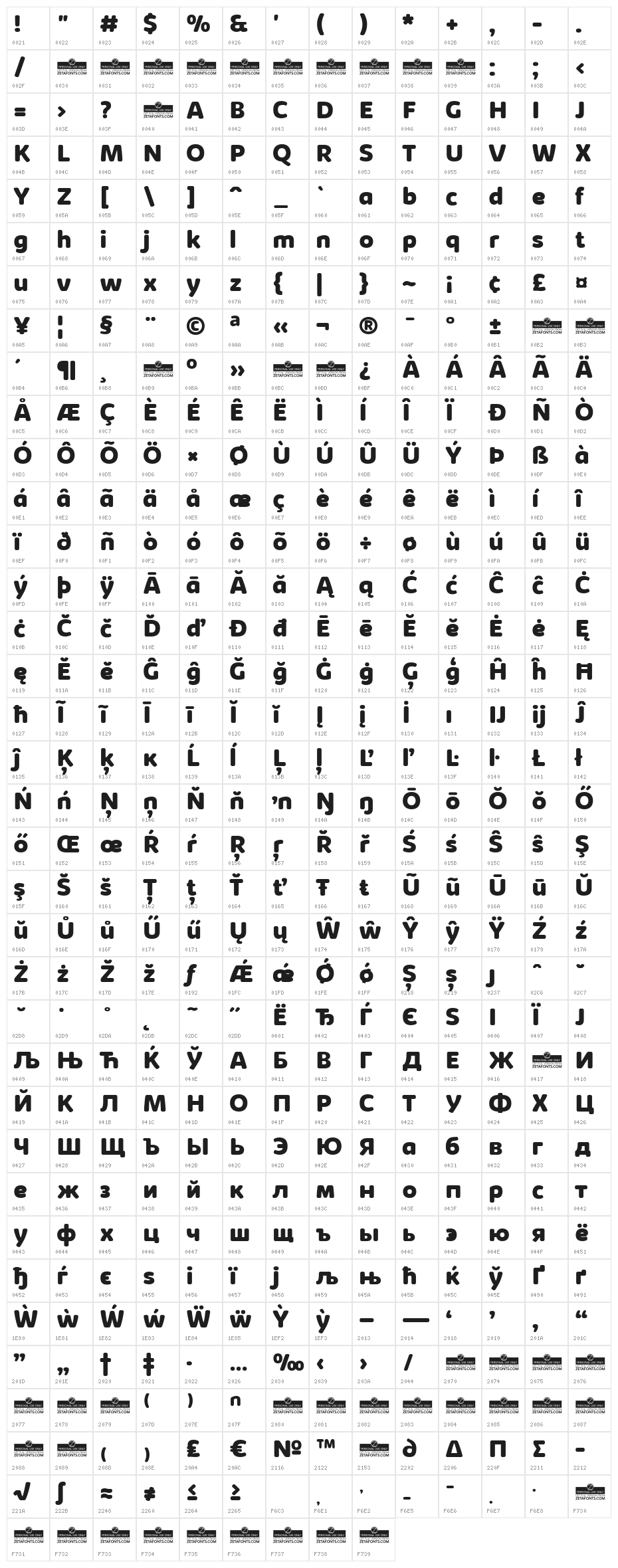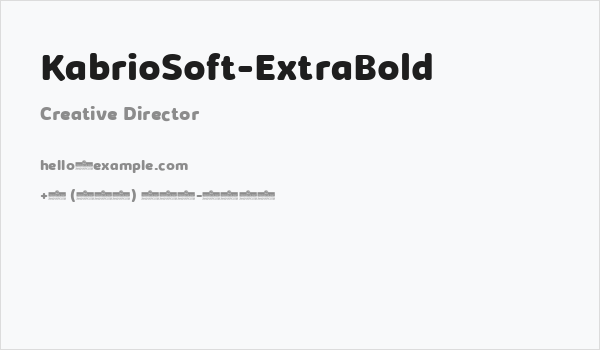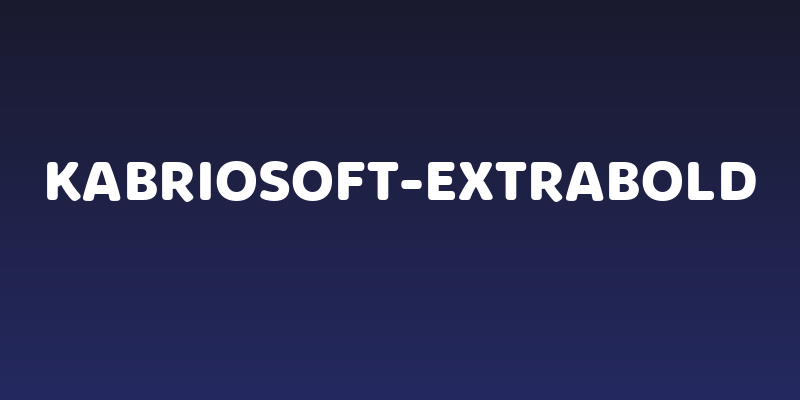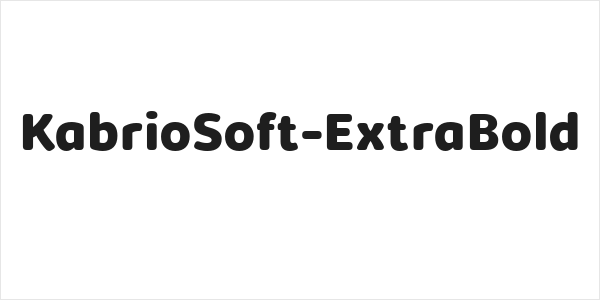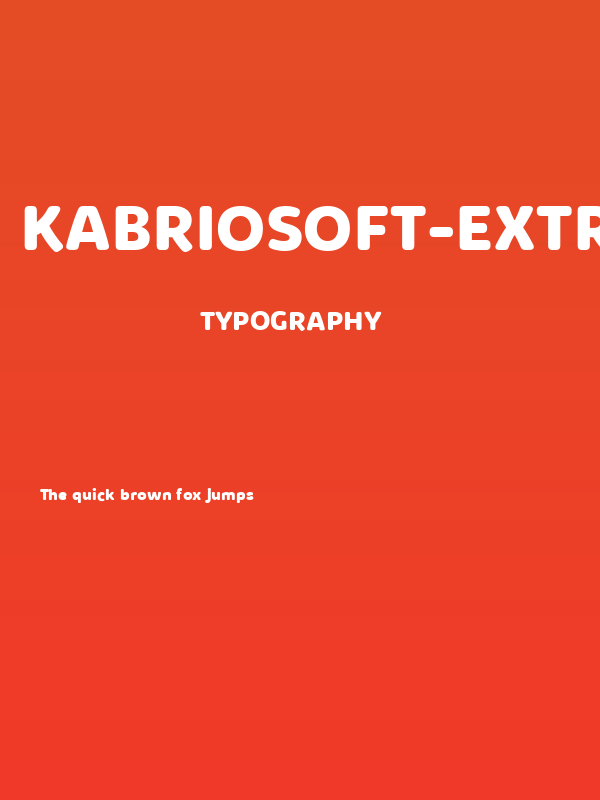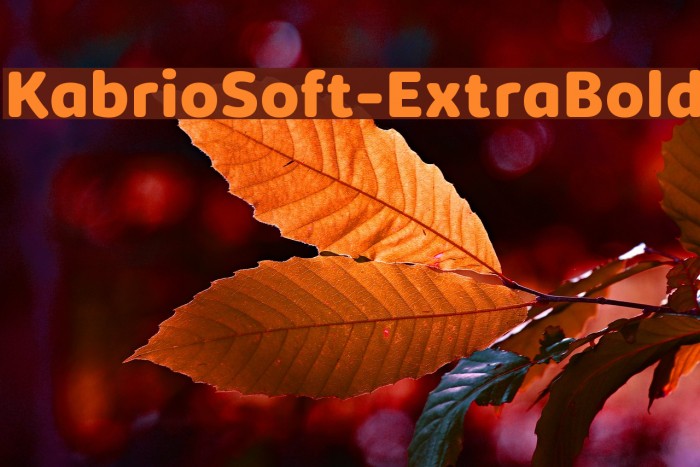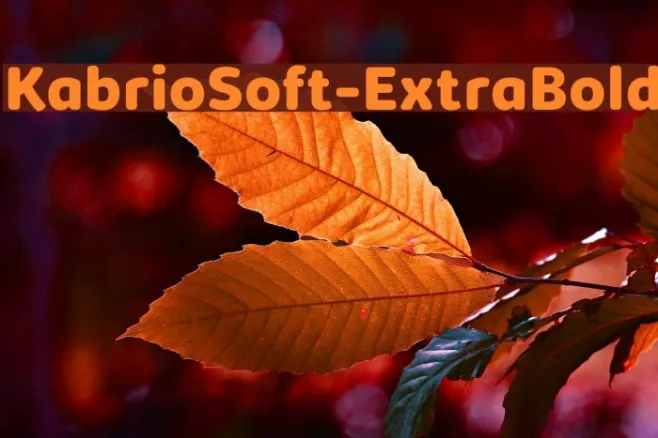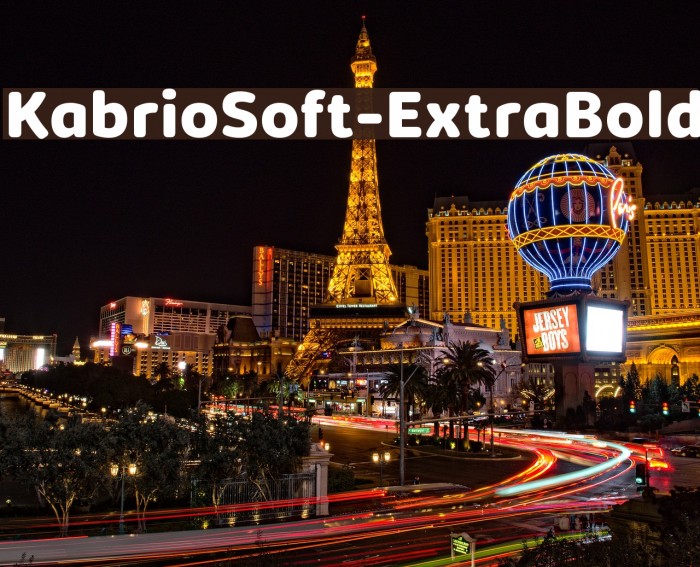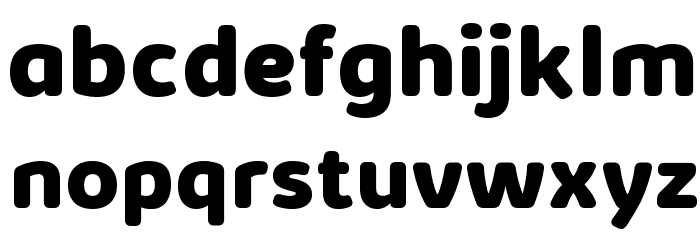
KabrioSoft-ExtraBold Font
KabrioSoft-ExtraBold Description
This font features a bold and rounded style with a modern and friendly appearance. The characters are thick and uniform, providing a strong visual impact. The rounded edges give it a soft, approachable feel, making it suitable for a variety of design projects. The uppercase and lowercase letters maintain a consistent weight, ensuring readability and balance. The numerals and special characters are designed to match the overall aesthetic, contributing to a cohesive look.
| Proposed Projects | Ideal for branding, headlines, posters, and advertising materials where a bold and approachable look is desired. |